Anti-Design Fonts: Messy Handwriting Fonts That Feel Human
Celebrating the rise of 'ugly', imperfect typography in modern branding.
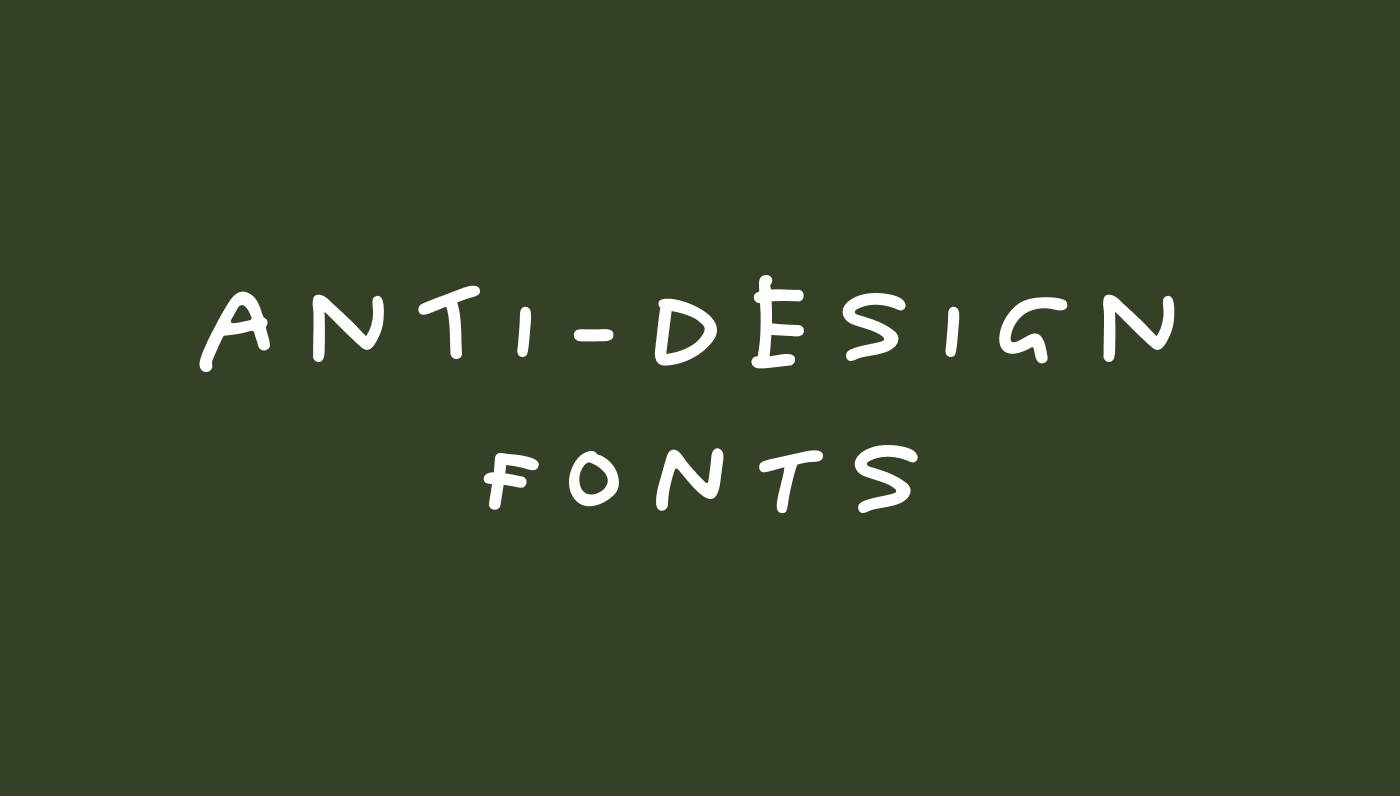
For years, branding was obsessed with perfection. Clean grids. Geometric logos. Flawless typography.
But recently, something interesting has happened... Designers have started embracing the opposite.
Messy handwriting, awkward layouts, scribbled notes and intentionally imperfect typography have become a core part of the anti-design movement. Rather than looking polished, these brands look human.
In a world increasingly filled with AI-generated content and cookie-cutter design systems, messy handwriting fonts can add personality, authenticity and a sense of realness that polished typefaces often struggle to achieve.
Here are 17 of our favourite anti-design fonts for creating work that feels a little more human.
Sick Day
This Font is made by Tropical Type's youngest employee - Teddy. He is five years old and is learning to write and spell in kindergarten.
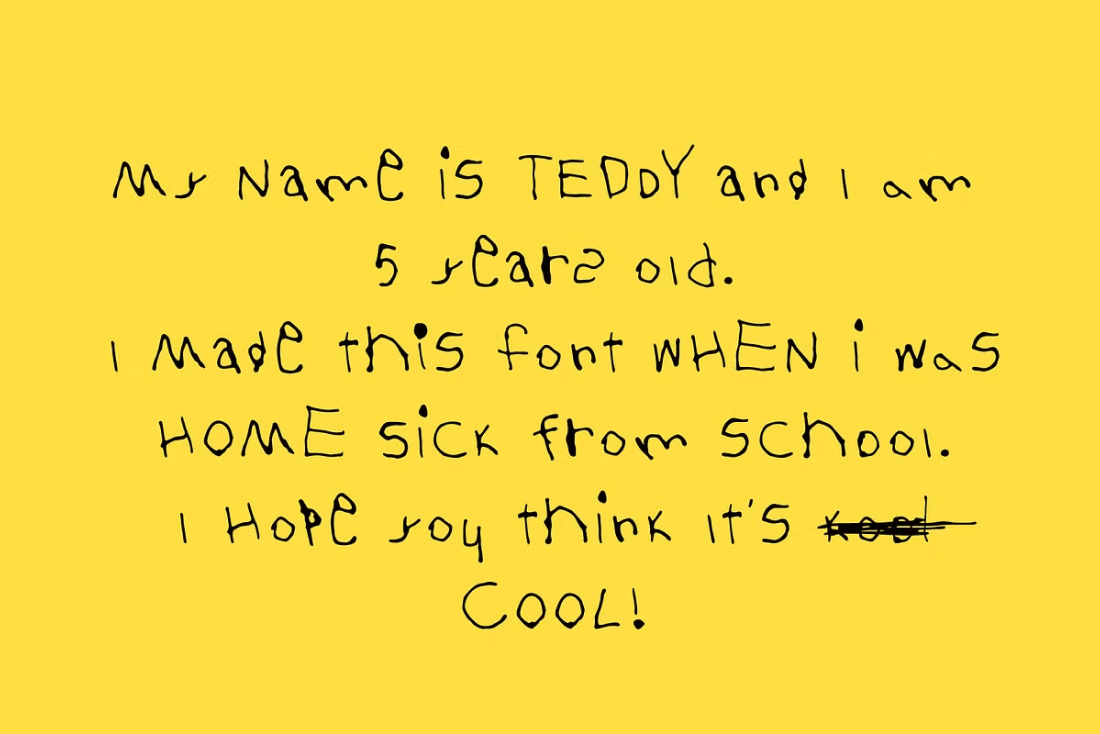
Bad Beans
Bad Beans is a messy little throwback to simpler times. Just you, a marker and something to say. No polish, no pressure, no trying too hard.
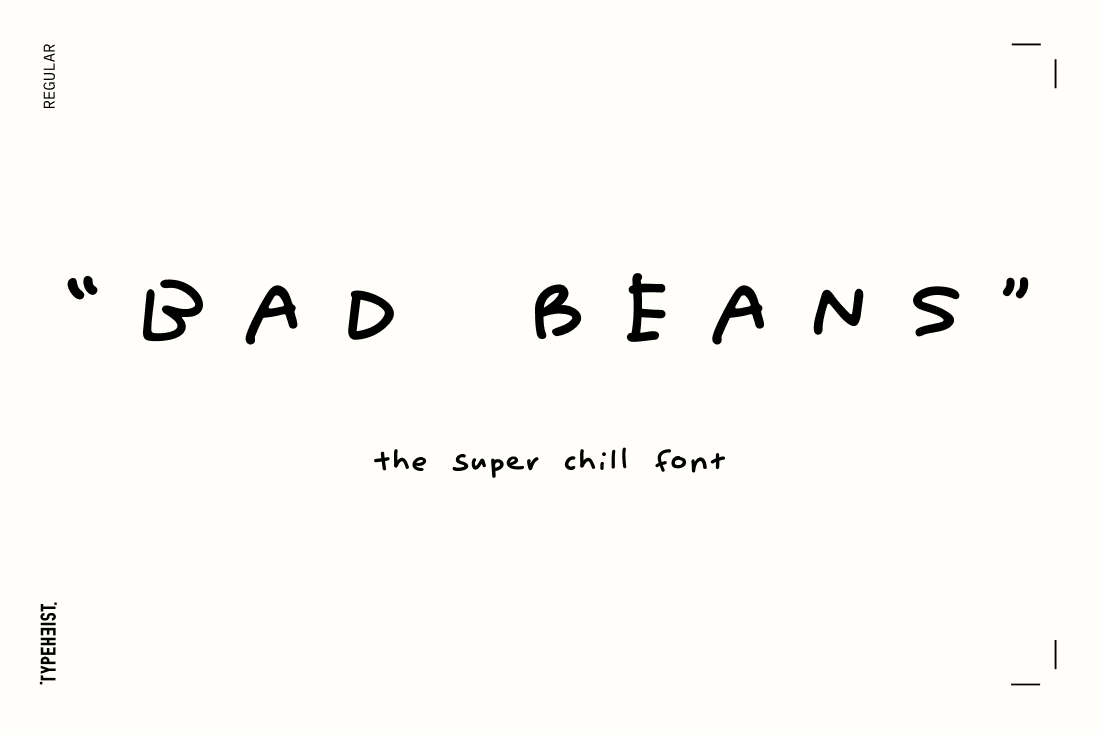
Cactus Jack
A gritty, oddly stylish font pack that reads like a war cry on the page. It brings a bold, hand-drawn voice to quotes, posters, and social media graphics, with enough texture and character to feel personal rather than polished.
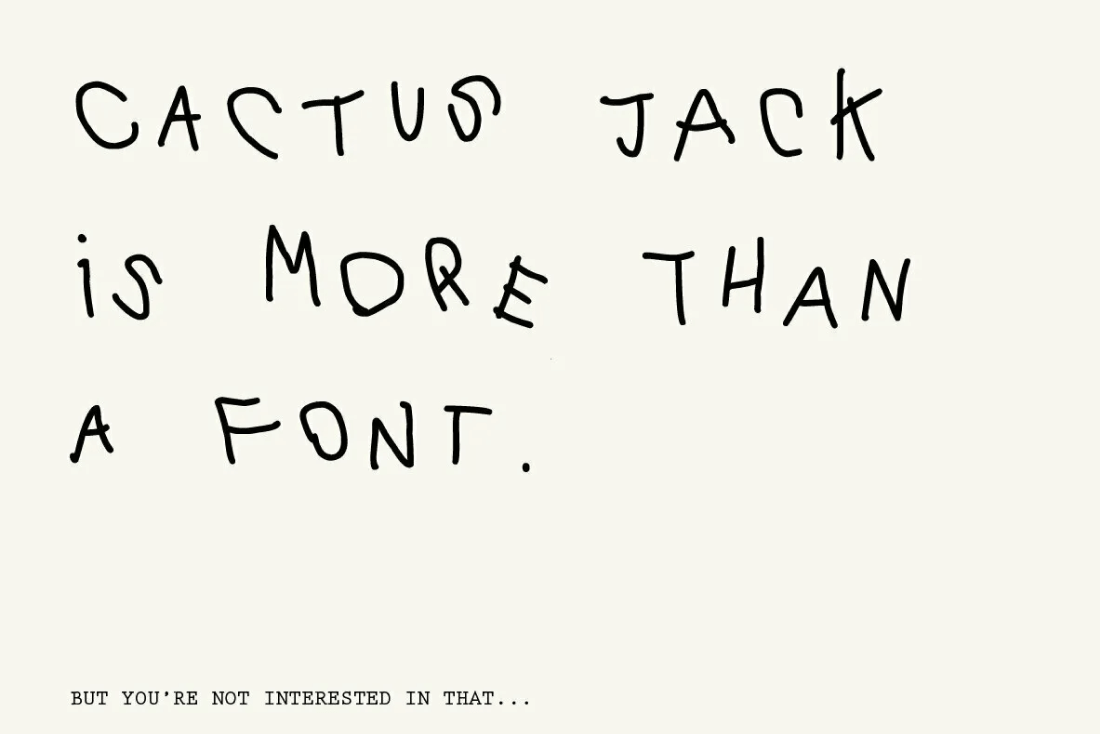
Fosmon
Fosmon is experimental handwritten font, every single letters have been uniquely crafted.
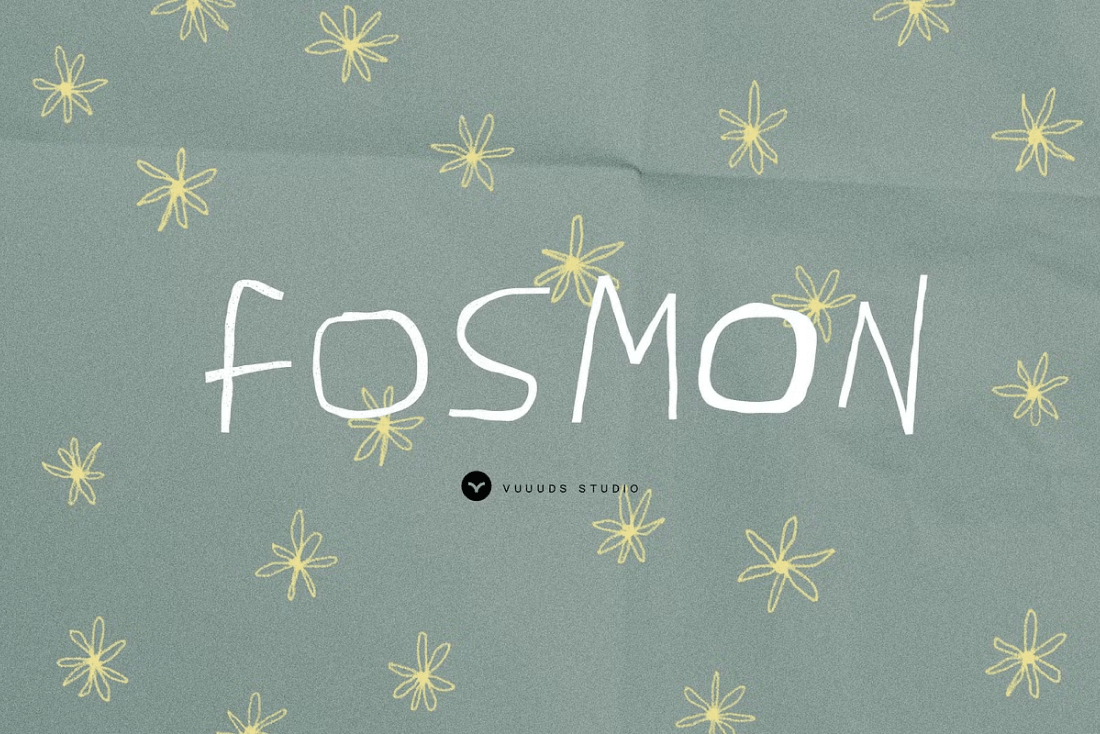
Child's Play
Child's Play is a handdrawn font inspired by kids handwriting. The hand-drawn feel gives it the perfect edge to accompany drawings and hand-drawn posters or websites. It's imperfect edge also compliments any display font needs.
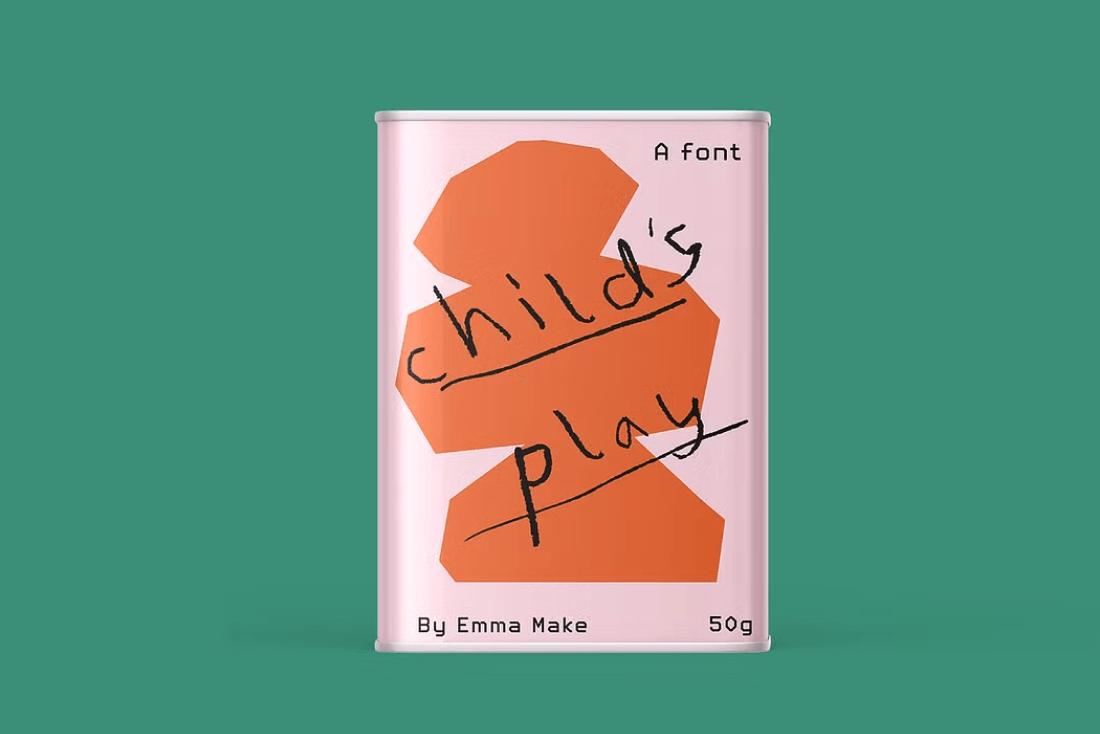
Sticky
"Meet Sticky. A realistic and slightly offbeat handwriting font that comes in two weights: regular and bold. Sticky is warm and approachable with a playful edge that keeps things interesting.
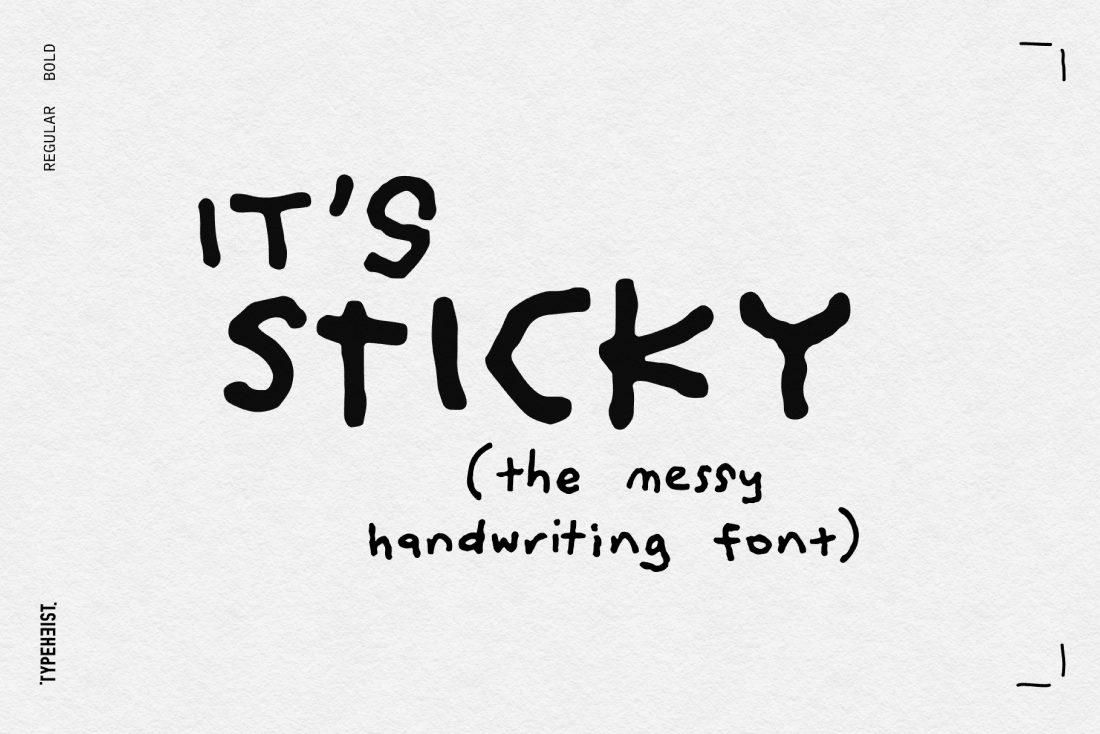
The Blank Weirdos
The Blank Weirdos is an organic messy handwritten font that conveys a sense of spontaneity. The Blank Weirdos Handwritten Font is packed with everything you need, including uppercase and lowercase letters, numbers, and punctuation.
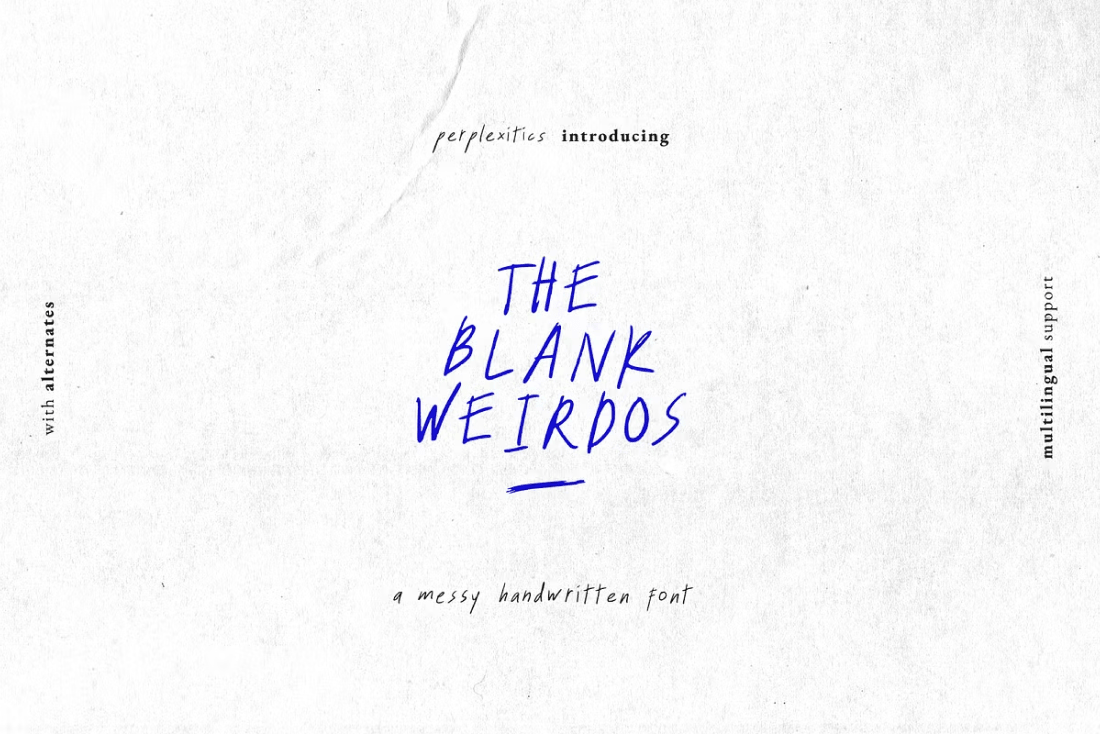
Bimbo
This is a gritty yet stylish messy font that embraces imperfection as its defining feature. Designed to look irregular and freely scribbled, it brings a sense of spontaneity and creativity to every design, turning chaos into character.
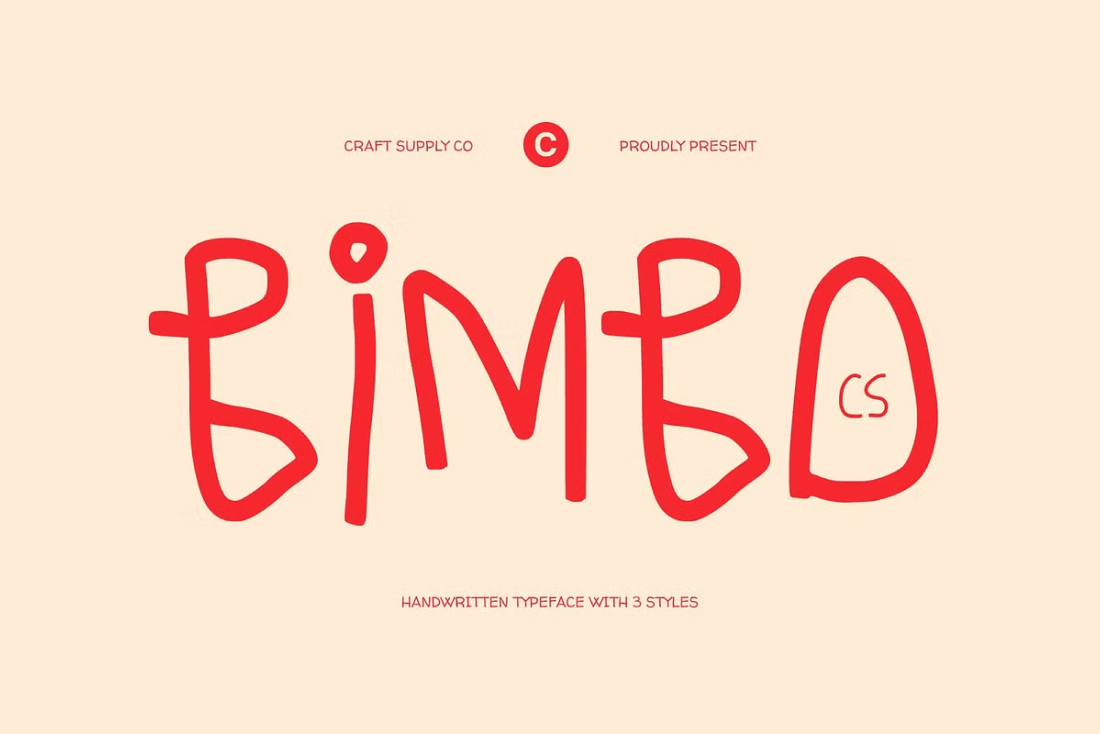
Casual Human
Casual handwriting by human hands, created naturally and 100% hand lettering to make it unique and rough feel.
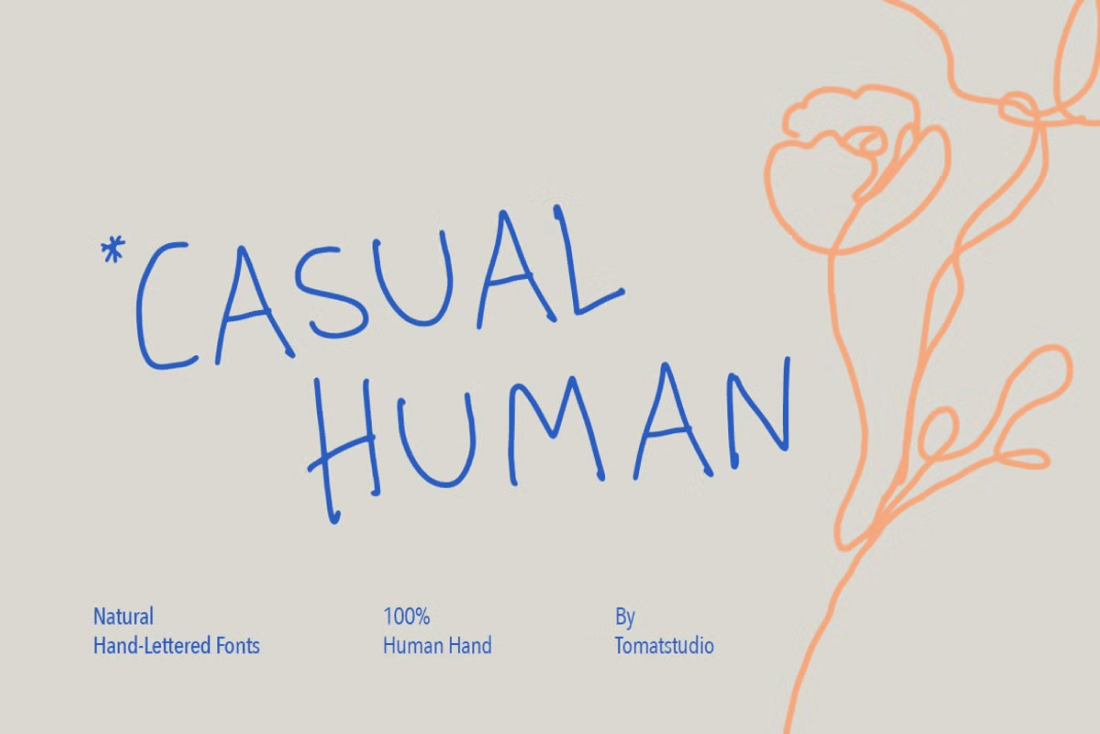
The Clumsy Cursive Set
A unapologetically awkward handwritten cursive font coupled with an equally quirky All caps companion. Perfect for conveying lightehearted whimsy and playful nonesense! Pencilled with love, a set of lightly textured fonts to convey authentic warmth and charm.
Ugly Dave
Ugly Dave is not a ‘nice’ font… It’s messy and childish and some may even call it yuck. But you can be confident in knowing that it is most definitely unique (and it is kinda charming).
Sneeze
Get familiar with Sneeze TM – a rough marker font with no polish. With contextual alternates on, three stylistic sets rotate automatically, giving the text an organic flow. Fight perfect, fight vanity 🤘🤘
Offbeat Line
OFFBEAT LINE — UGLY SANS FONT! This font doesn’t try to be pretty — and that’s exactly the point. OFFBEAT LINE is a quirky, hand-drawn sans serif with awkward curves, dancing baselines, and letters that just can’t sit still.
Pandemonium
“Wild uproar, unrestrained disorder; tumult or chaos”. True to its name, Pandemonium font is exactly that: wild, chaotic and super erratic. This messy handwriting font doesn’t follow any rules. It’s skinny, it’s wide, it’s bold, it’s scratchy, it’s jagged and unpredictable. And yet somehow, amongst it’s disorder, each letter harmonises with the next one.
Wrong Hand
Wrong Hand is a playful handwritten font with the right kind of weirdness. Created with the left hand, it keeps the carefree doodle vibes, imperfect curves, and cute chaotic style that give casual lettering its charm. It suits posters, stickers, packaging, and fun creative projects where neatness would feel too polished and seriousness would miss the point.
Jooolz
Jooolz is a perfect typeface for cafés, bakeries, and fresh new brands. Loose, lively, and wonderfully unrestrained, it carries strong personality without ever feeling messy. The letterforms read as playful yet confident, giving your words a handmade warmth with a touch of mischief.
Sad Poem